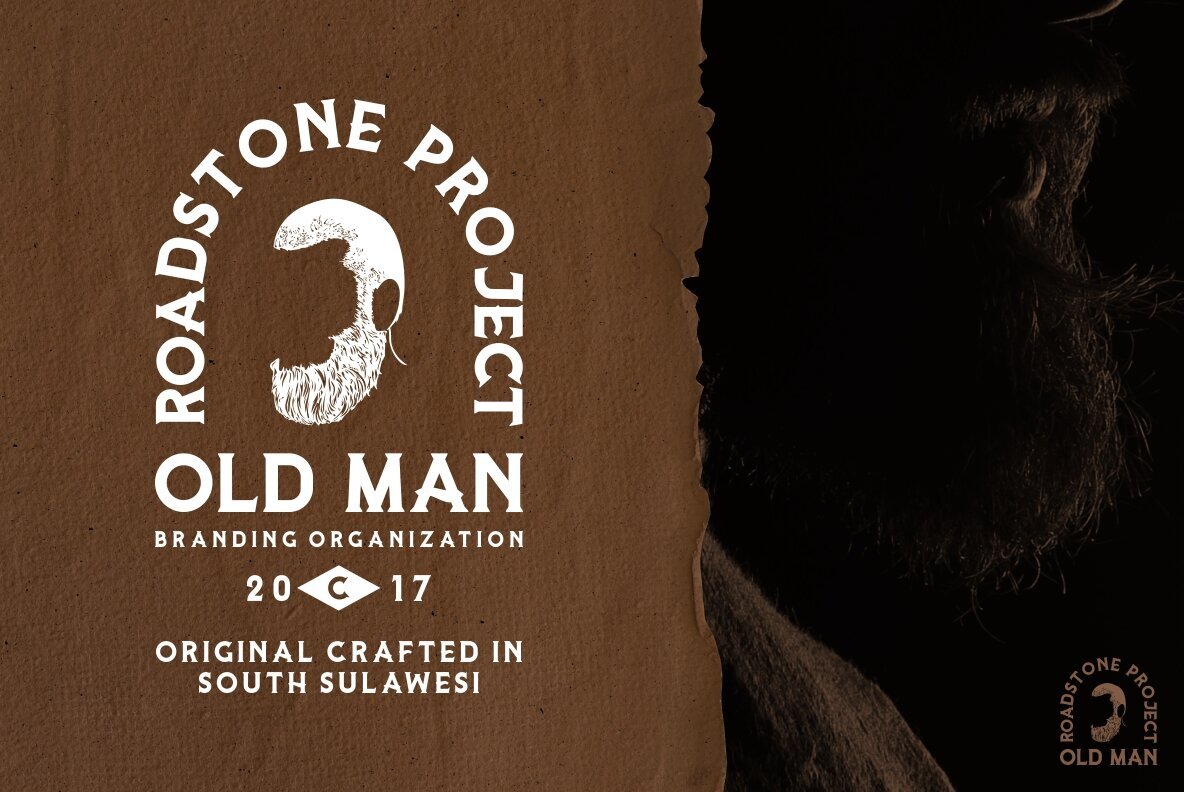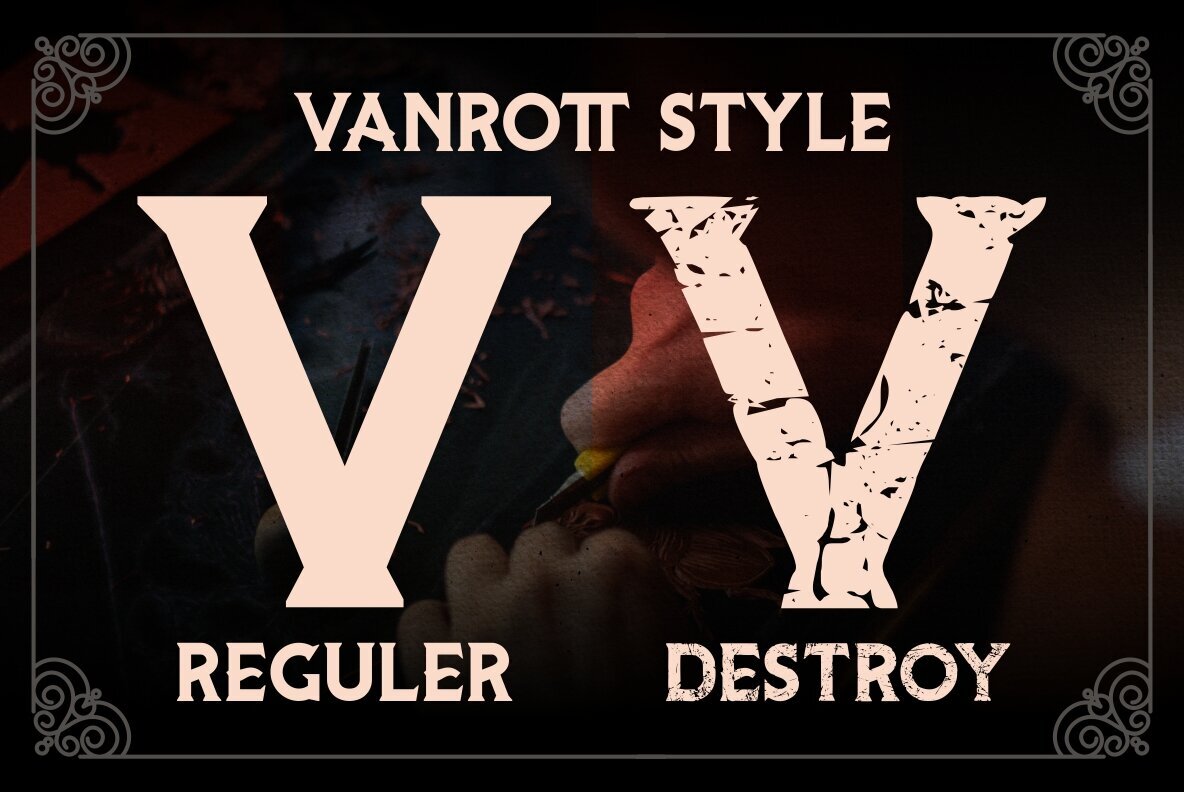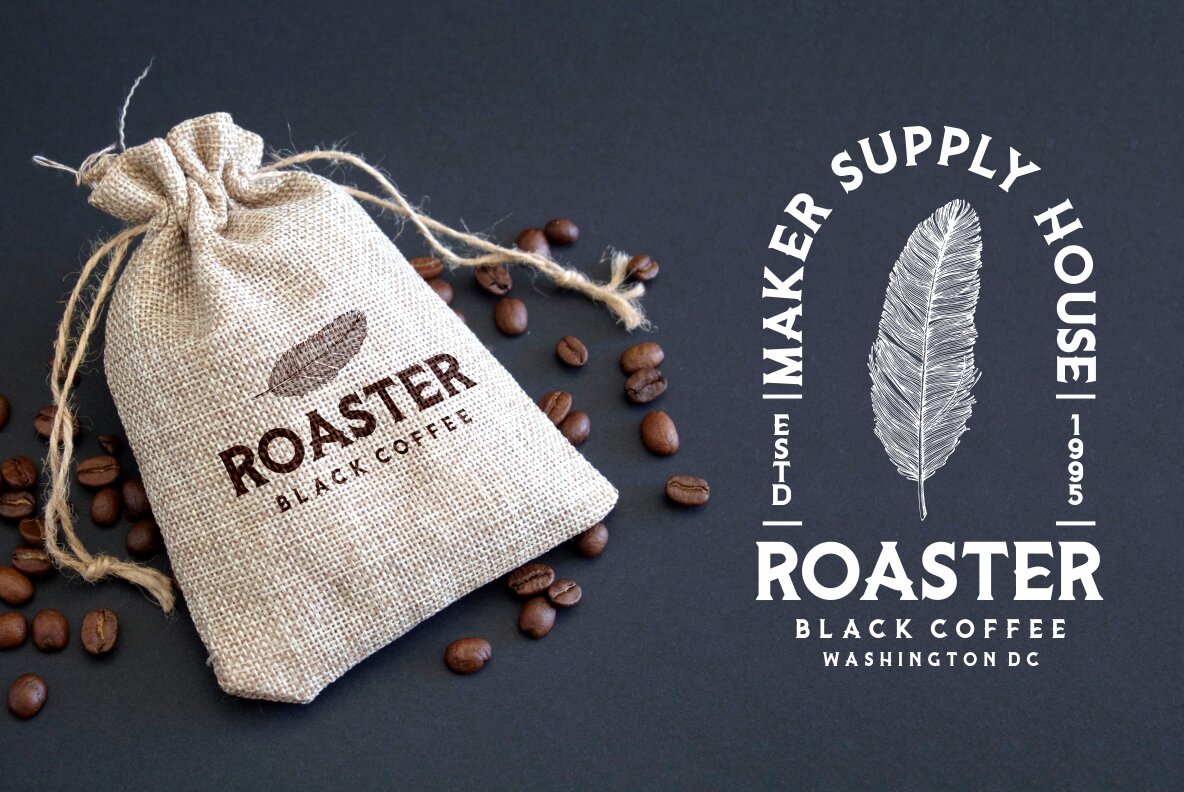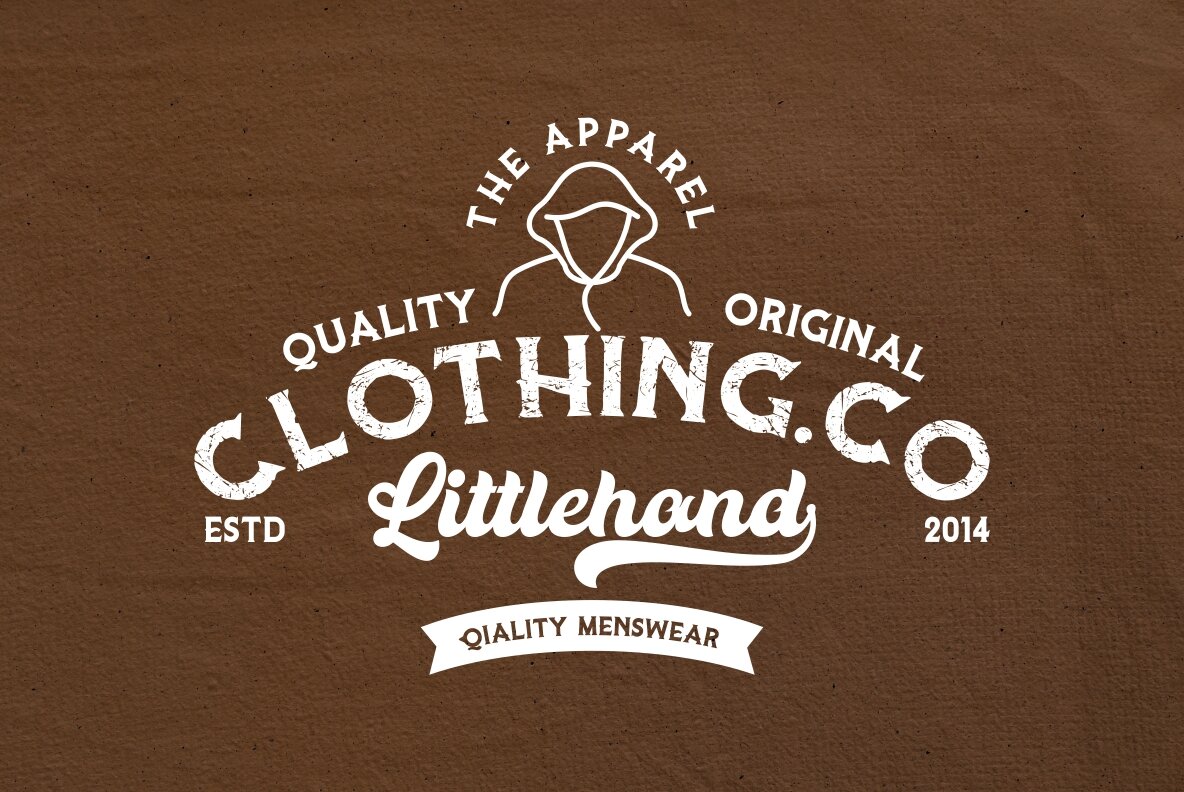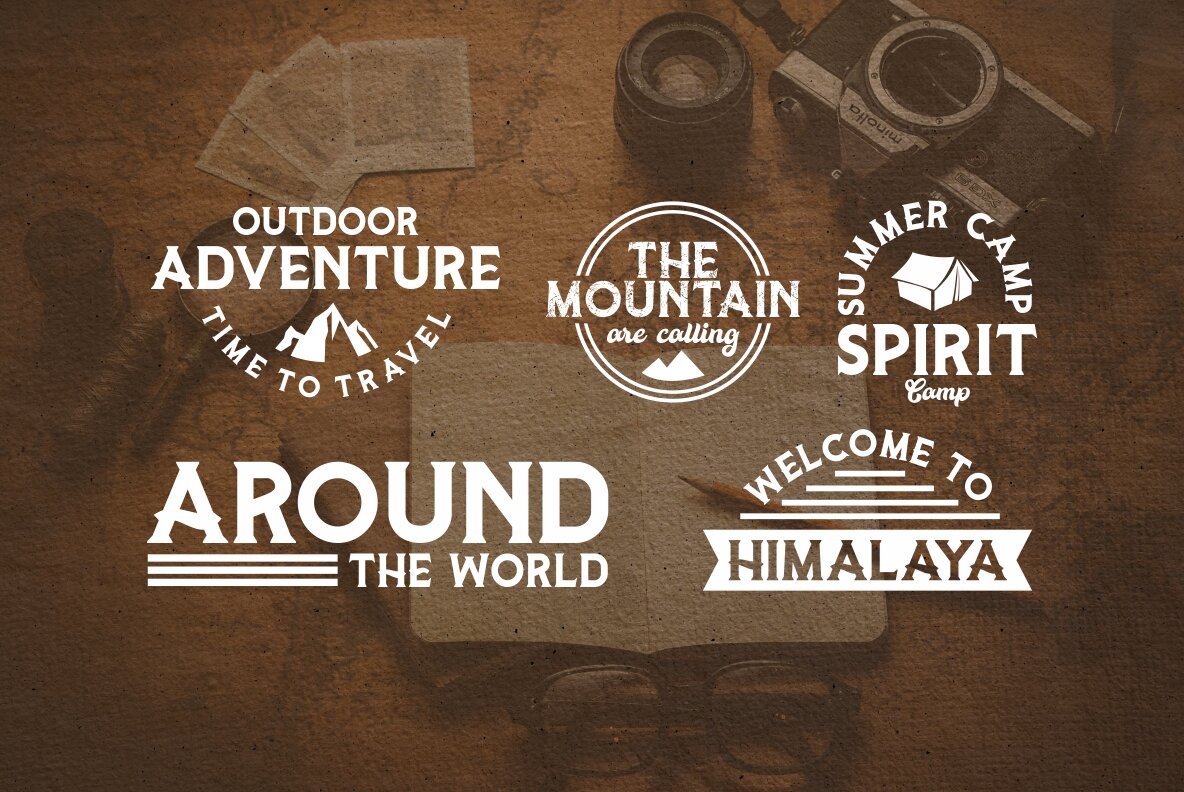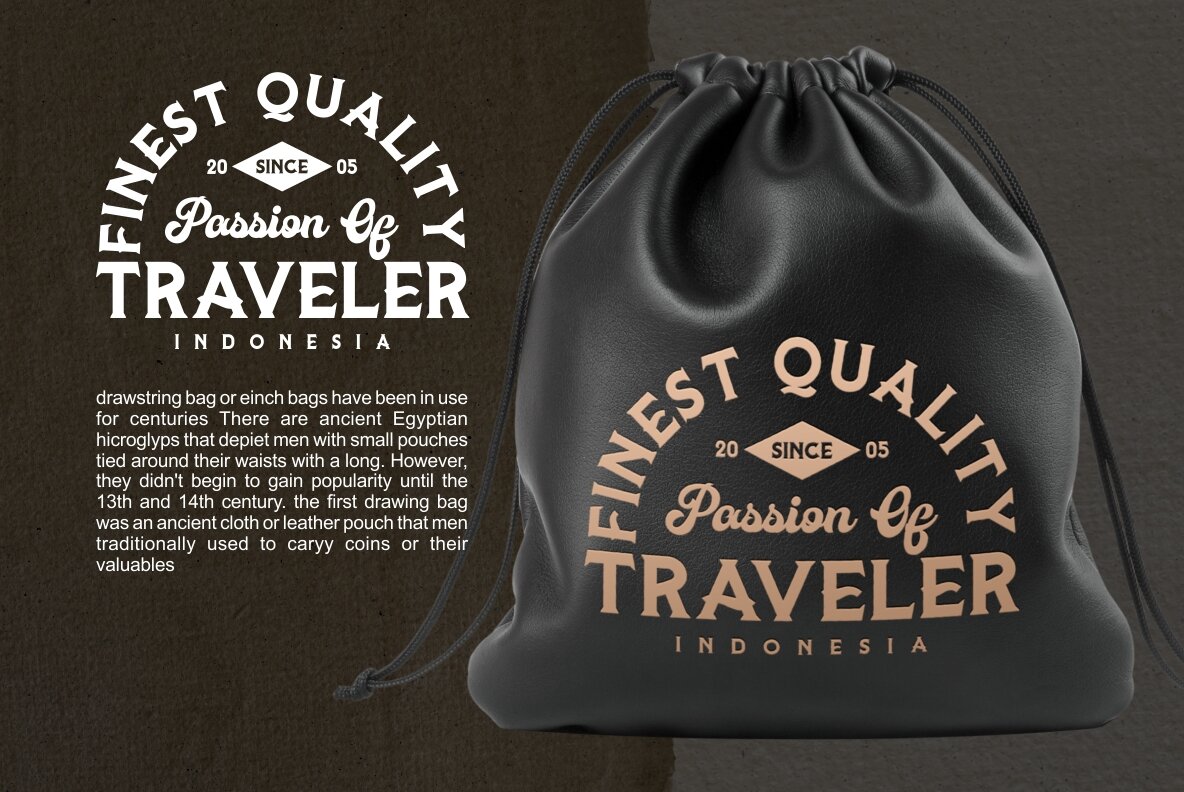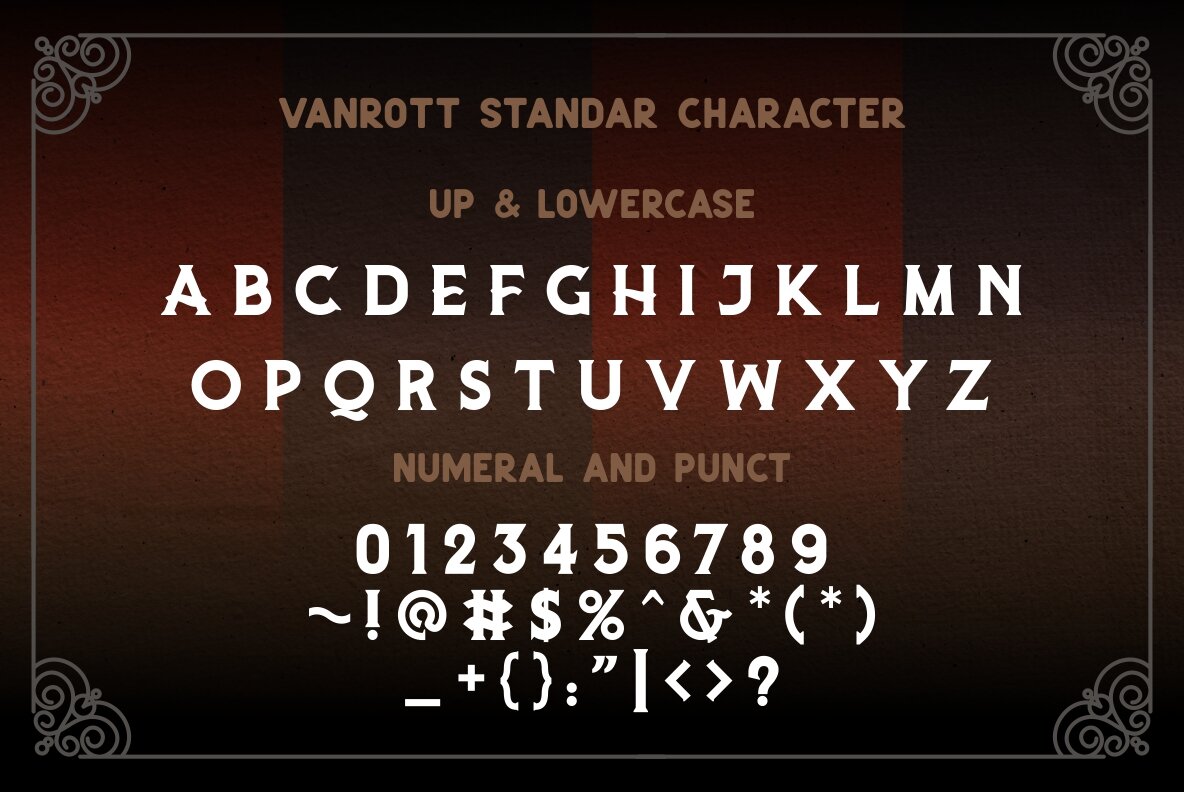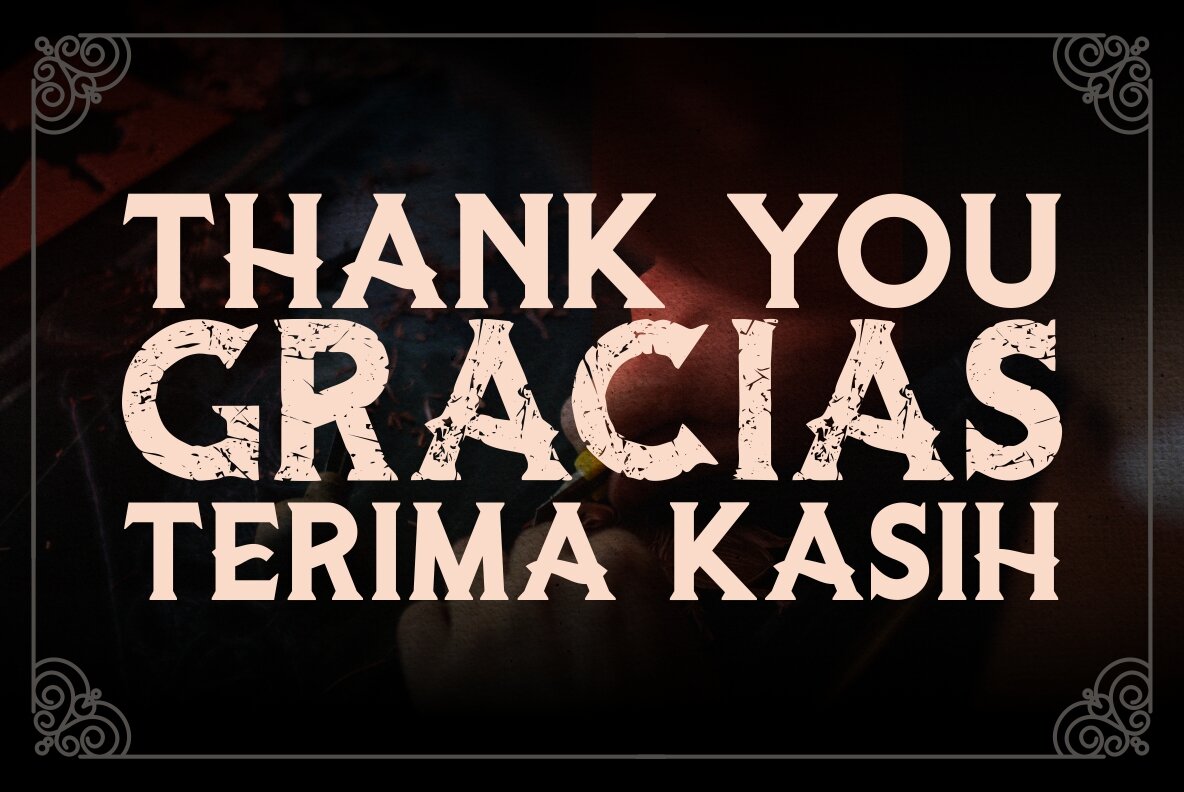
Vanrott Font
Vanrott is an old font with two regular choices and is destroyed in bold, prominent, old-fashioned but modern look! perfect for those of you who need fonts for titles, logos, clothing, invitations, branding, packaging, advertisements, etc. This typeface is present in uppercase, lowercase letters, punctuation, symbols, numbers, stylistic set alternate, ligatures, etc. It also supports multilingual.